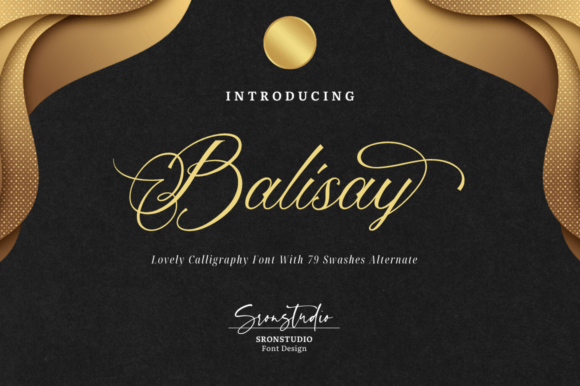
Unveil the Allure of Balisay: A Script Font Symphony for Creative Expression
In a world clamoring for distinctiveness, your brand's voice deserves a melody that captivates. Balisay, an enchanting handwritten font, emerges as your signature conductor, harmonizing elegance and charm into an unforgettable symphony of style.
With Balisay's graceful strokes and captivating curves, your designs will dance off the page, captivating audiences with their allure. Each letter, meticulously crafted by the maestro of typography, Sronstudio, resonates with a tale of passion and creativity, beckoning you to orchestrate a visual masterpiece that leaves an enduring impression.
Step into a realm where your imagination knows no bounds. Whether you're crafting a captivating brand logo, painting the town with striking social media posts, or designing wedding invitations that whisper romance, Balisay is your muse, transforming the ordinary into the extraordinary.
Embrace the boundless versatility of Balisay, a font that defies creative boundaries. Its inherent charm seamlessly complements branding projects, igniting a spark of recognition and loyalty among your clientele. From stationery that exudes sophistication to product packaging that radiates allure, Balisay elevates your designs to new heights of elegance.
For those seeking a touch of whimsy, Balisay's playful spirit shines through in social media posts, injecting a dose of personality that resonates with your audience. Its graceful lines dance across the screen, captivating attention and inviting engagement.
But Balisay's allure extends far beyond the digital realm. Its timeless beauty graces wedding designs, evoking an aura of romance and ethereal charm. Each invitation, menu, and seating chart becomes a keepsake, a tangible reminder of a day filled with love and joy.
Unleash your creativity in a symphony of colors, textures, and shapes, knowing that Balisay will effortlessly harmonize with your vision. Its versatility shines through, whether you choose muted tones for a classic look or vibrant hues for a bold statement.
With Balisay as your creative partner, you gain access to a world of possibilities, where your imagination takes center stage. Its enchanting melody will elevate your designs, transforming them into captivating masterpieces that resonate with your audience.